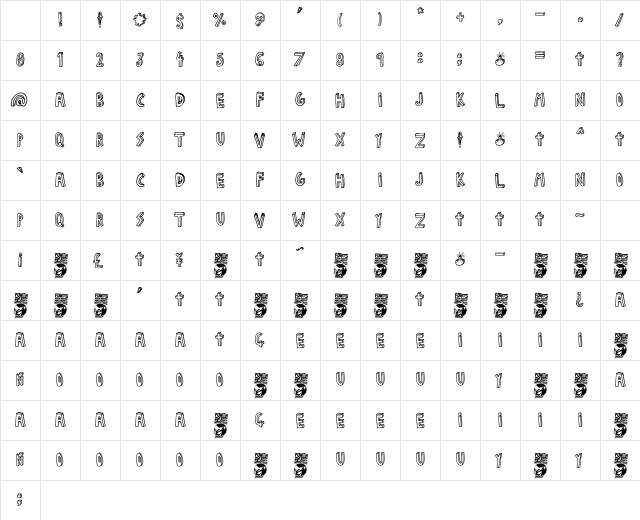
Complete Fuente Jalisco Regular glyph index. Displaying only characters natively supported by Fuente Jalisco Regular font.
Fuente Jalisco is a composed and adaptable typeface that performs quietly and consistently across a wide range of design contexts.